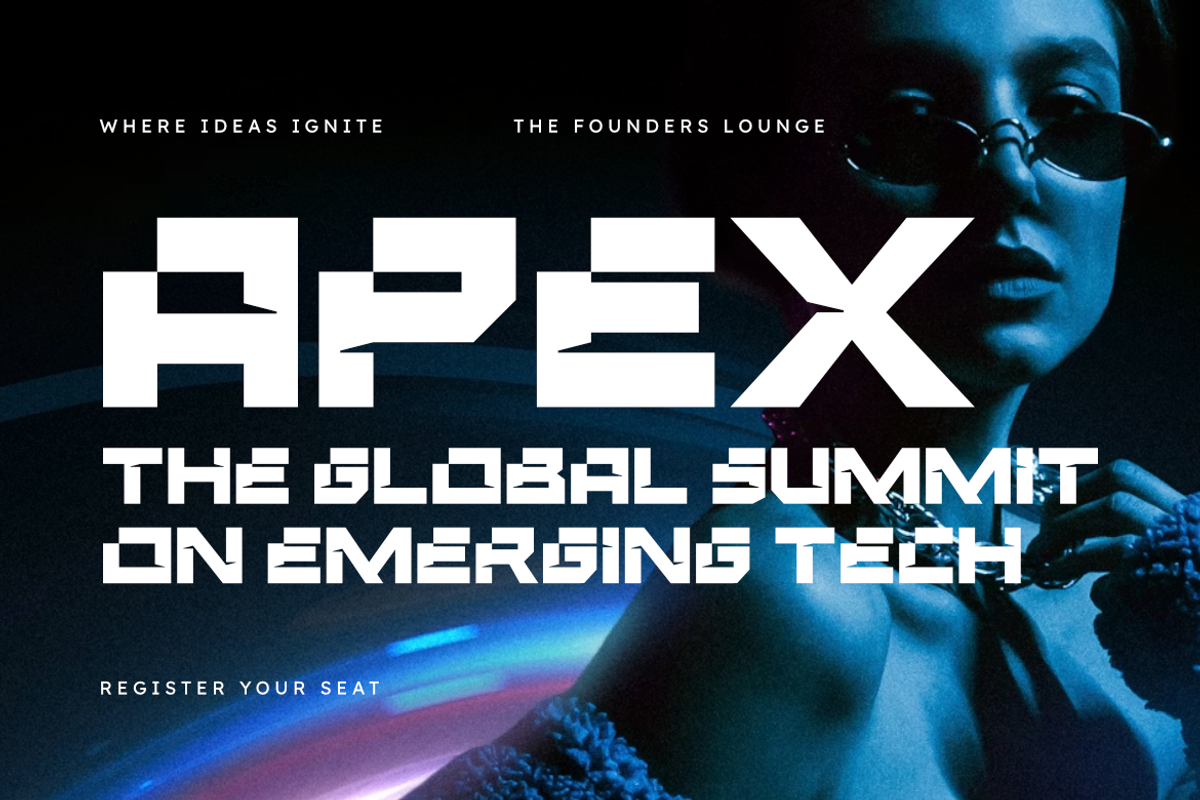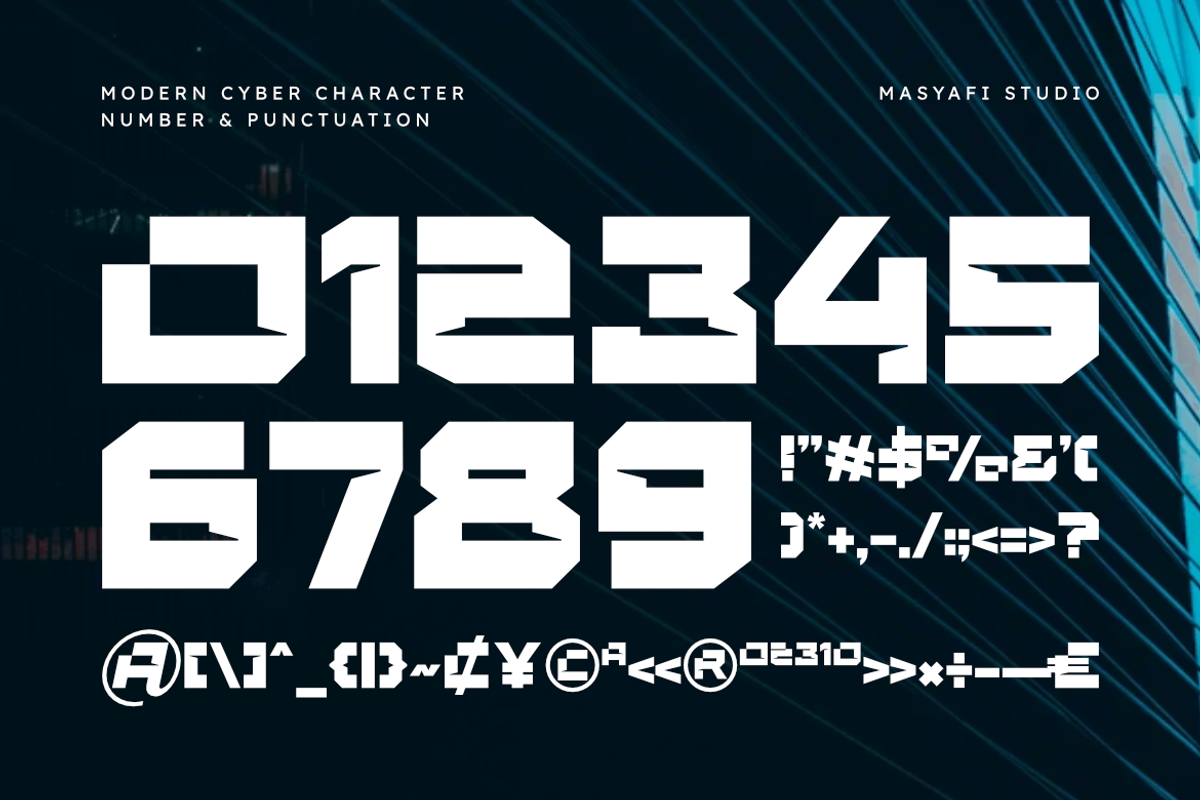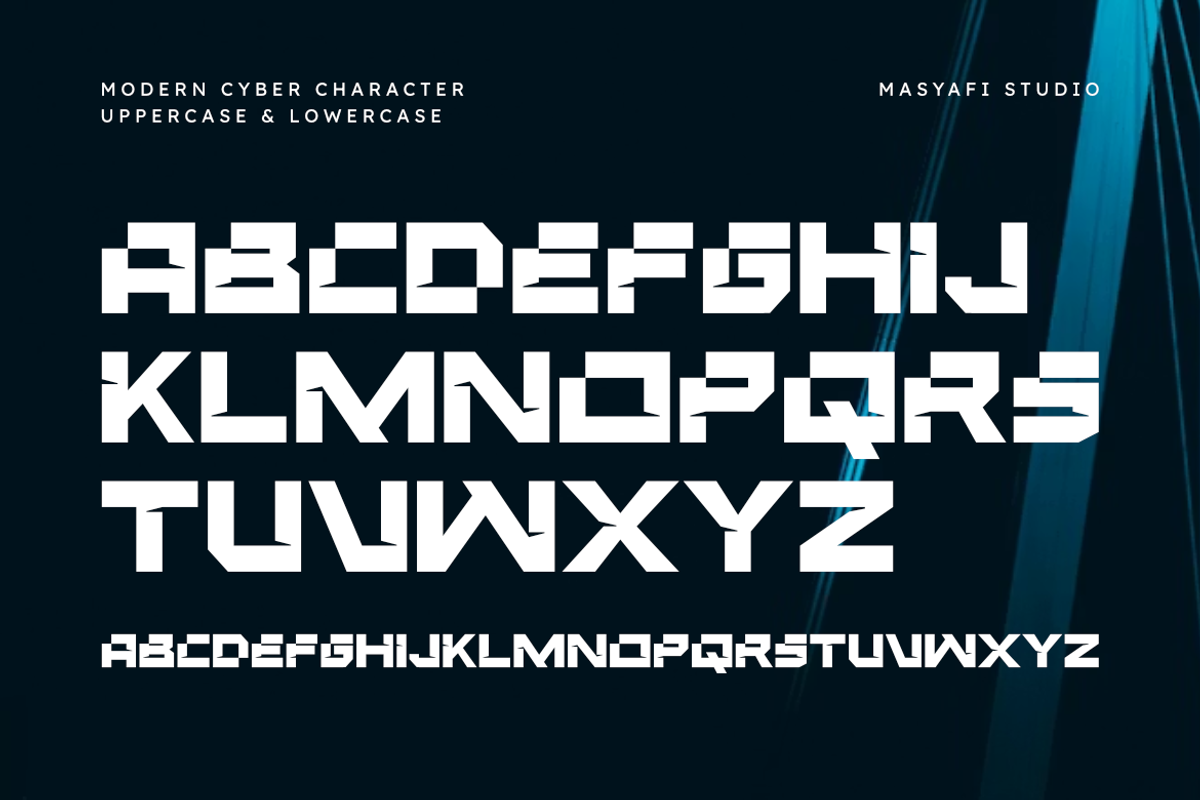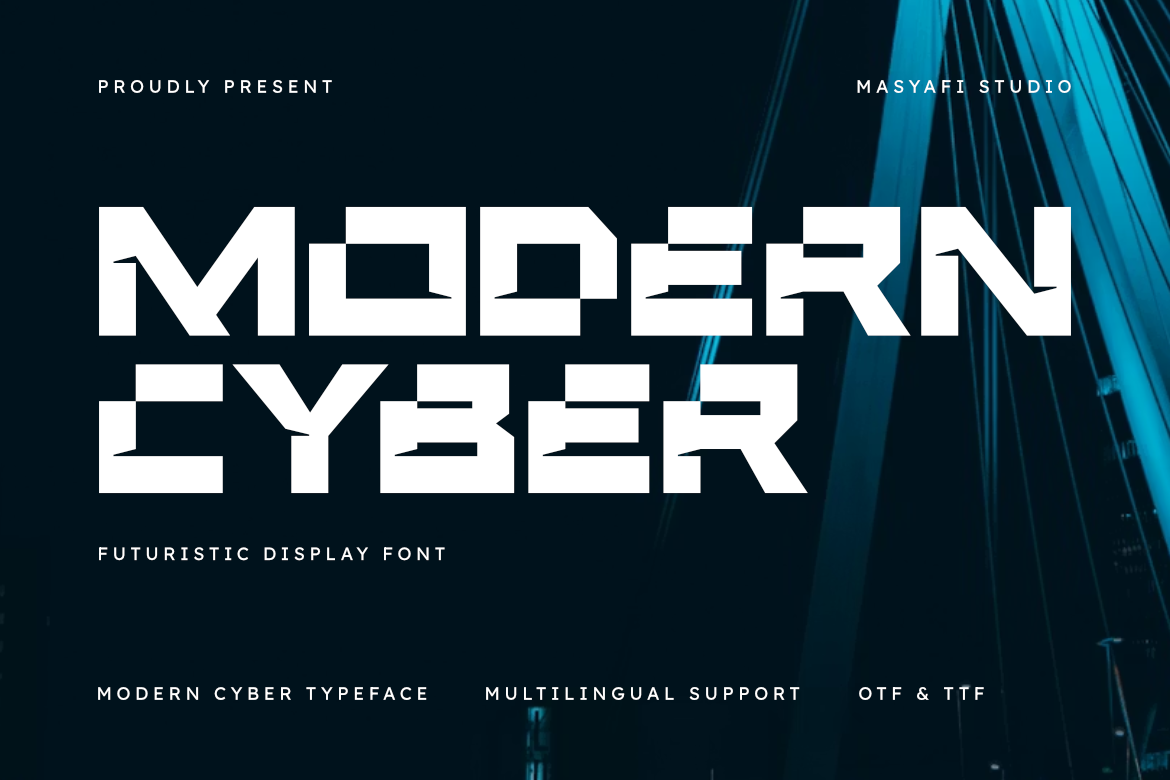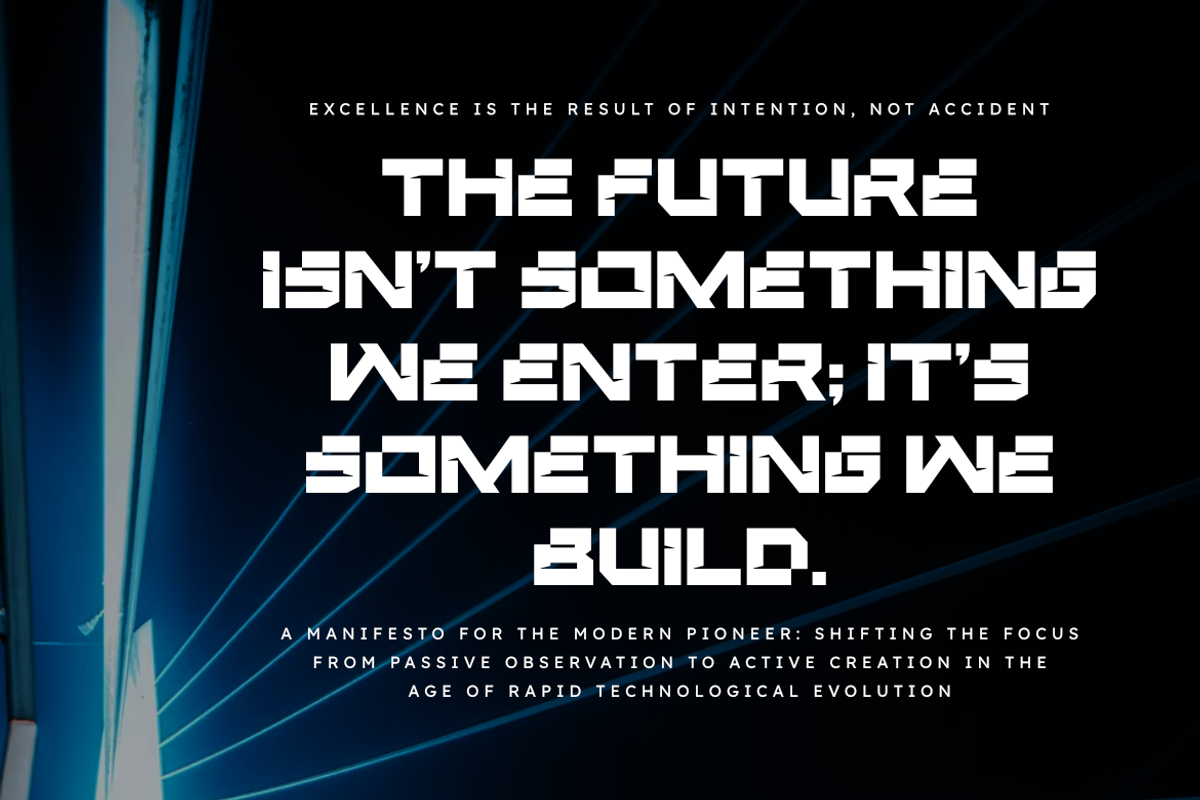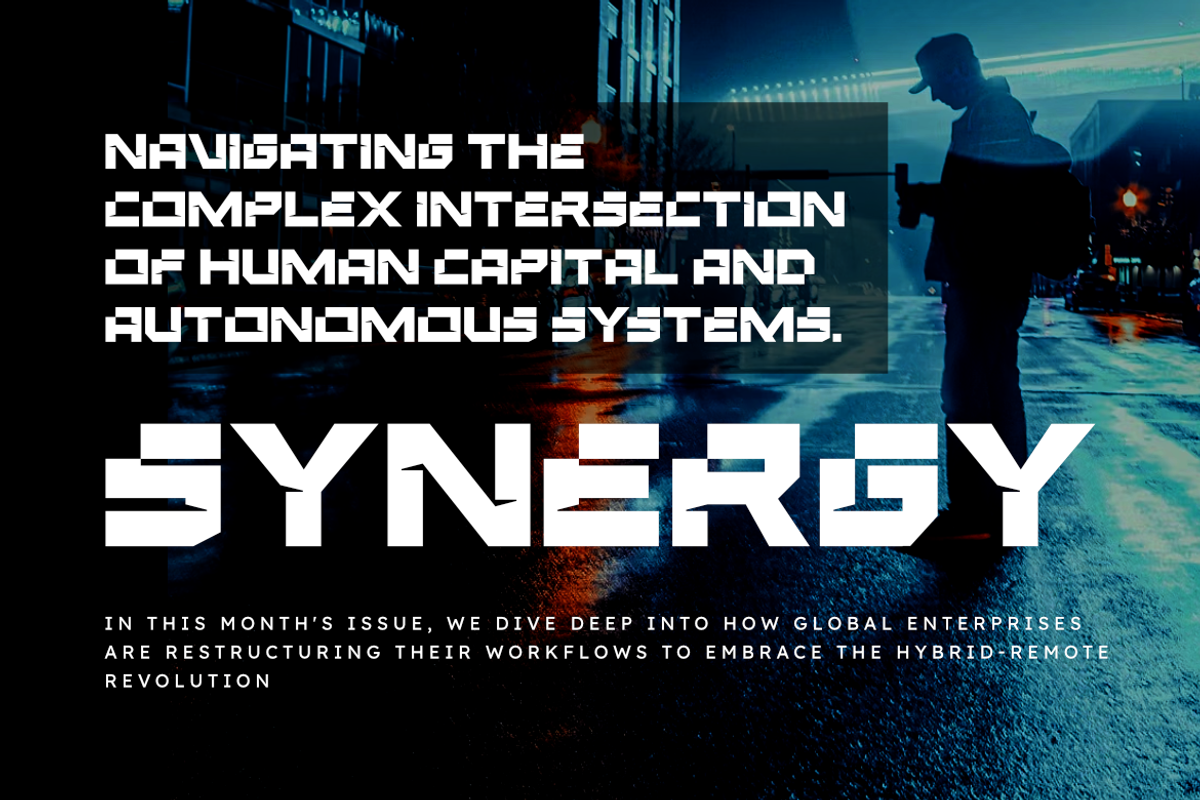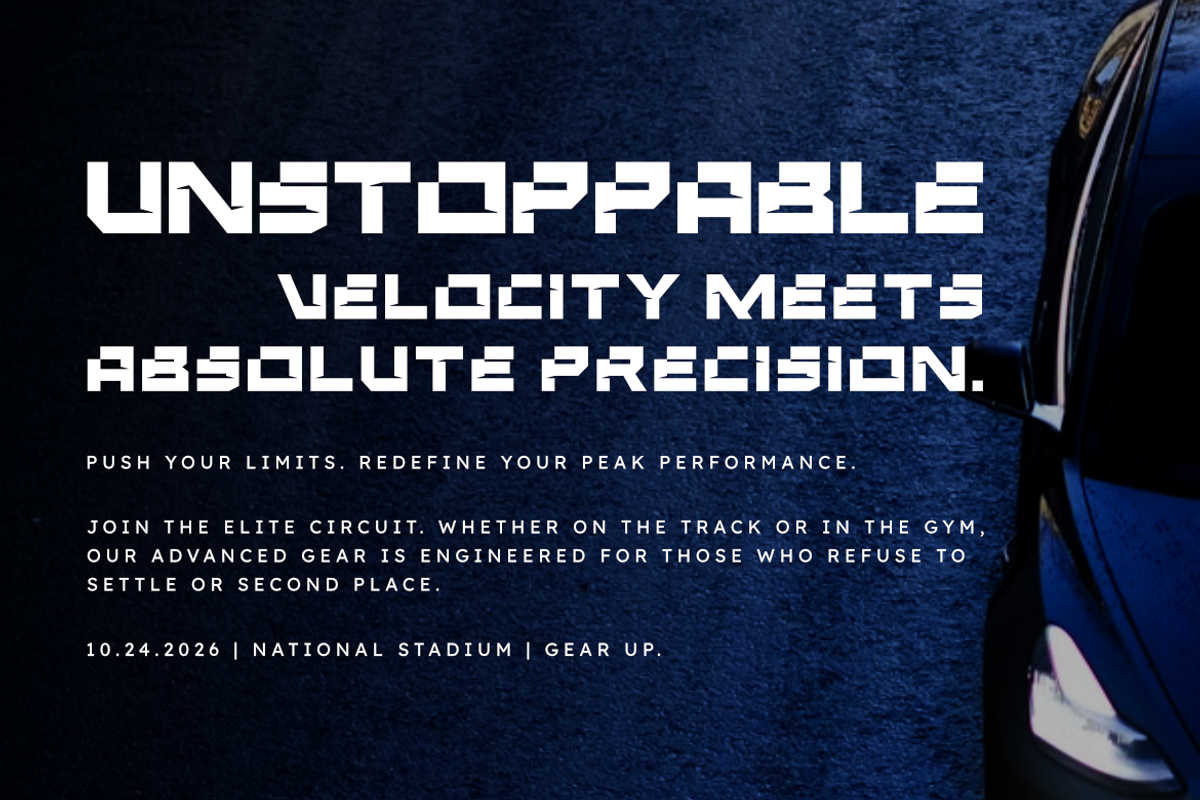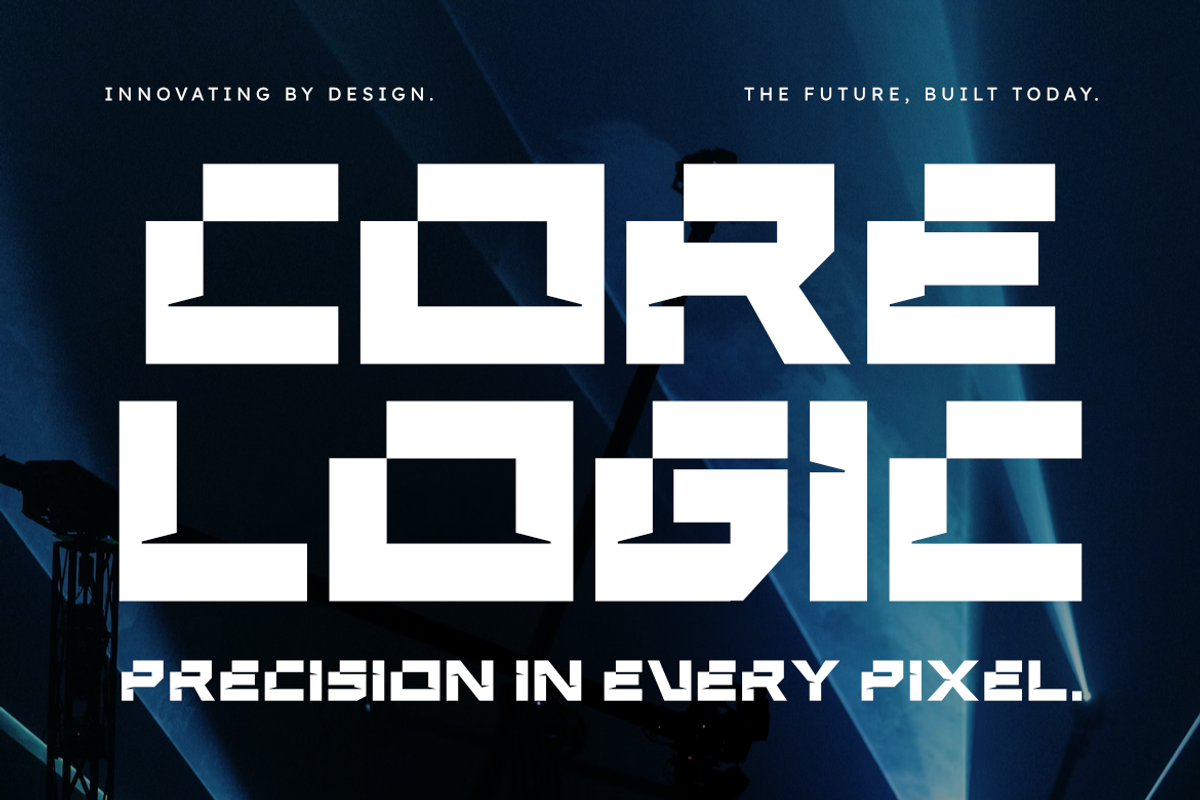
Modern Cyber | Futuristic Font
Modern Cyber | Futuristic Display Font
Unlock the digital future with Modern Cyber, a sophisticated display typeface built for precision and visual impact. Inspired by cyberpunk culture and industrial minimalism, Modern Cyber features bold geometric blocks and sharp stencil-like gaps that give your typography a premium, forward-thinking edge.
This font is the perfect choice for designers working on tech-heavy branding, esports logos, or cinematic headers. Its robust and clean structure ensures that your message remains impactful while maintaining a polished, high-tech aesthetic in any digital or print environment.
- Perfect for high-impact headlines and professional branding.